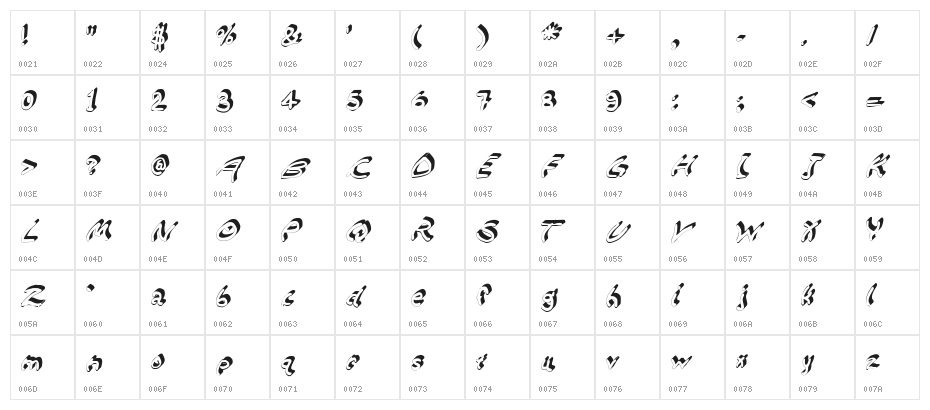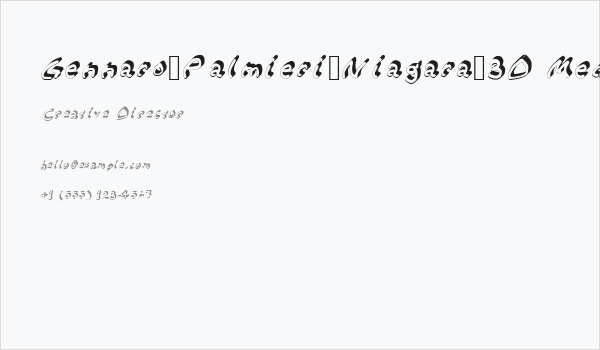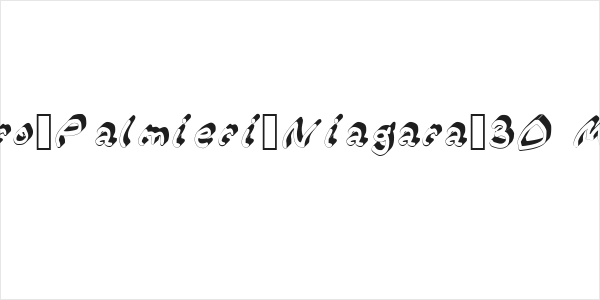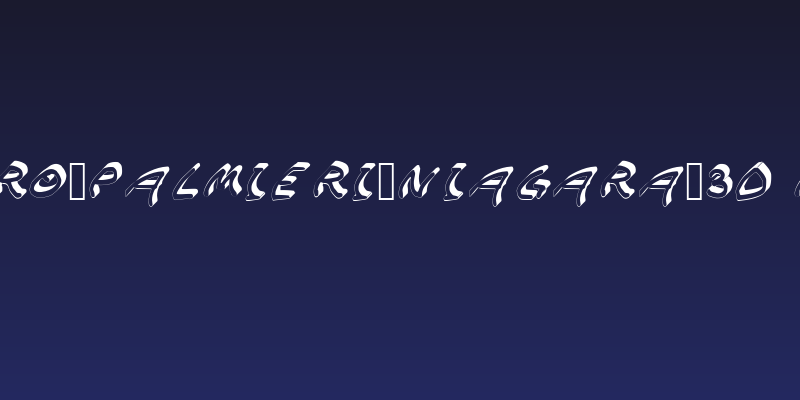
Gennaro_Palmieri_Niagara_3D Medium Font
Gennaro_Palmieri_Niagara_3D Medium Description
This font features a bold, three-dimensional style with a playful and dynamic appearance. Each character is designed with a shadow effect that gives it depth and a sense of movement. The letters are slightly italicized, adding to the fluidity and energy of the design. The font is highly decorative, making it ideal for eye-catching headlines or creative projects. Its unique style is characterized by a combination of thick strokes and sharp edges, which enhances its visual impact. The spacing between characters is relatively tight, contributing to its compact and cohesive look.
| Proposed Projects | Ideal for posters, logos, and any design requiring a bold, eye-catching headline. |